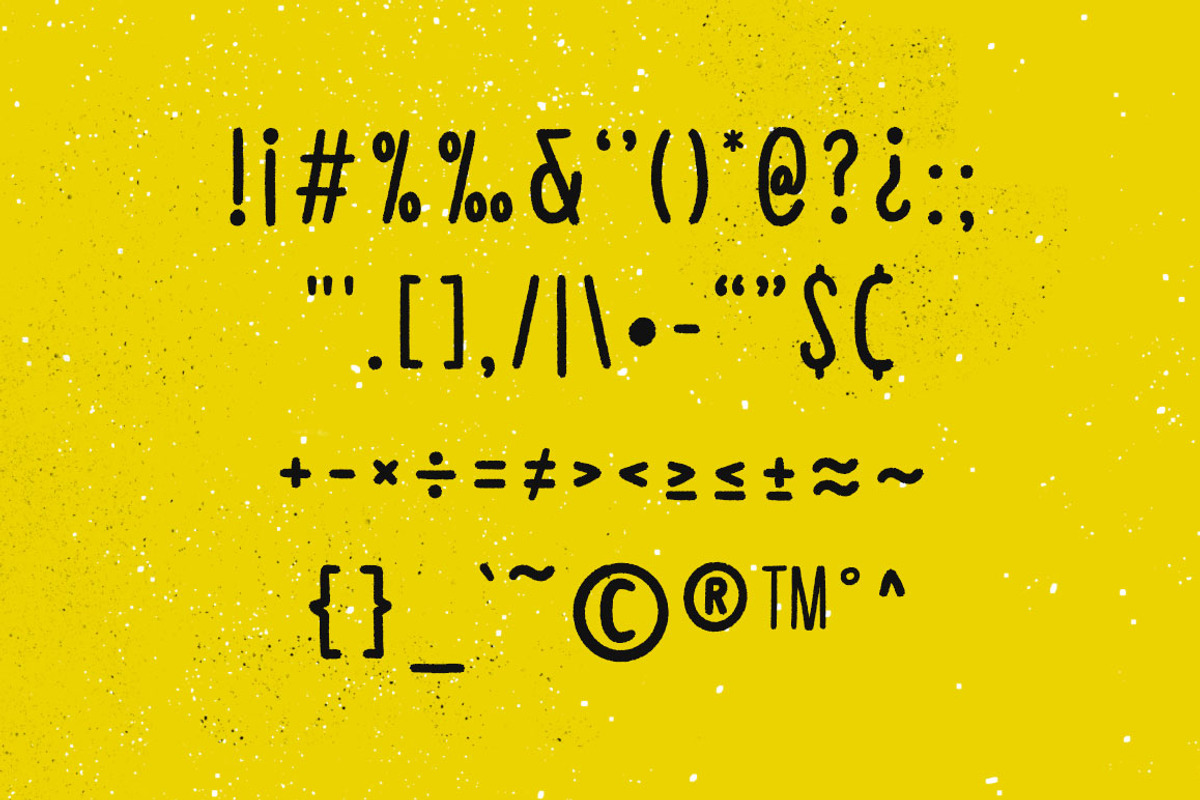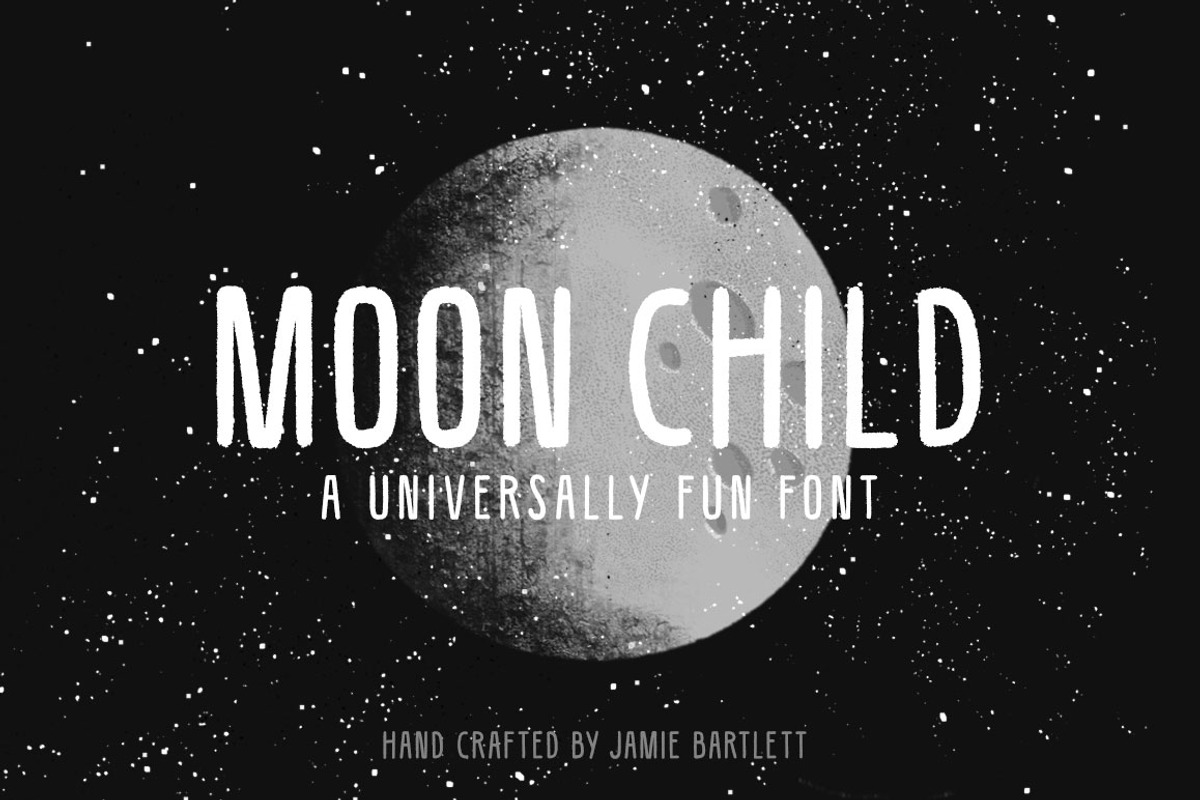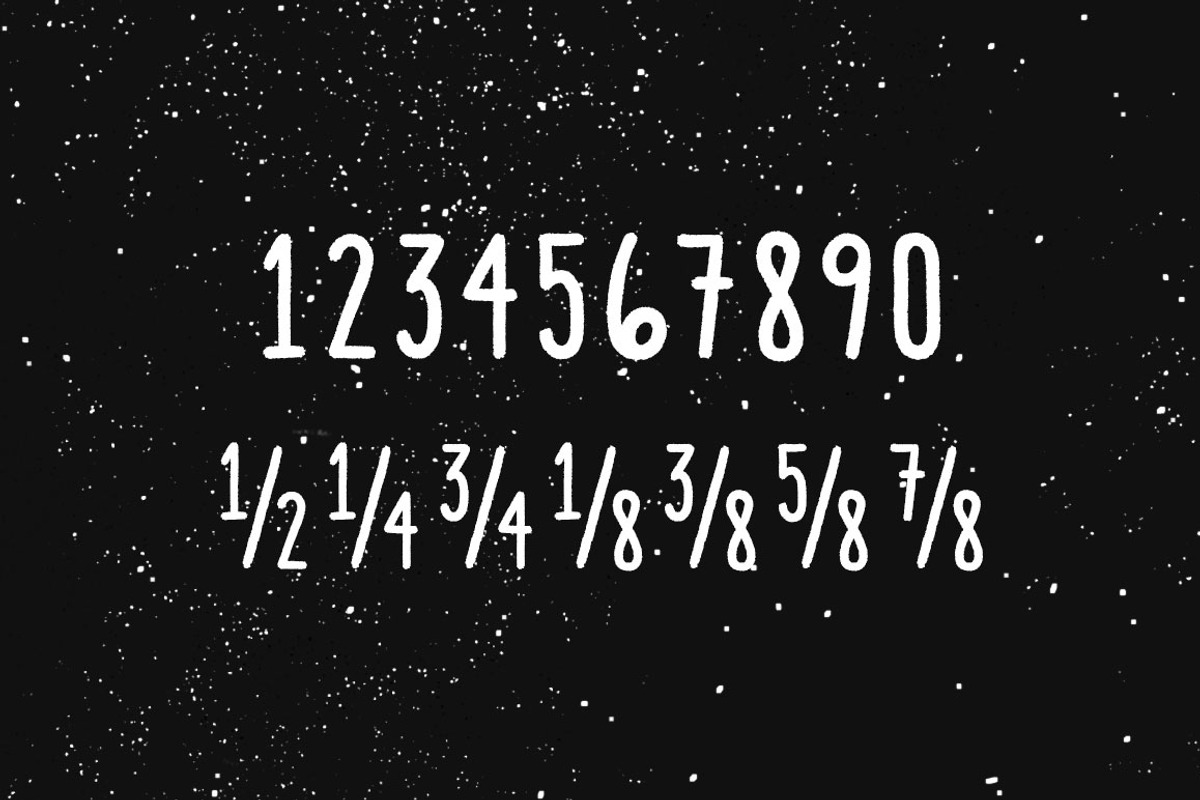
Moon Child Font
Moon Child is an uppercase hand drawn OTF font that is out of this world. This font is great for adding some quirkiness to your designs.
Select special characters and punctuation (see photo for all glyphs listed)
- Moon Child includes: Uppercase letters Numbers Select special characters and punctuation (see photo for all glyphs listed) Show More
Moon Child Font by Jamie Bartlett fits naturally into Branding, posters, packaging, typography.